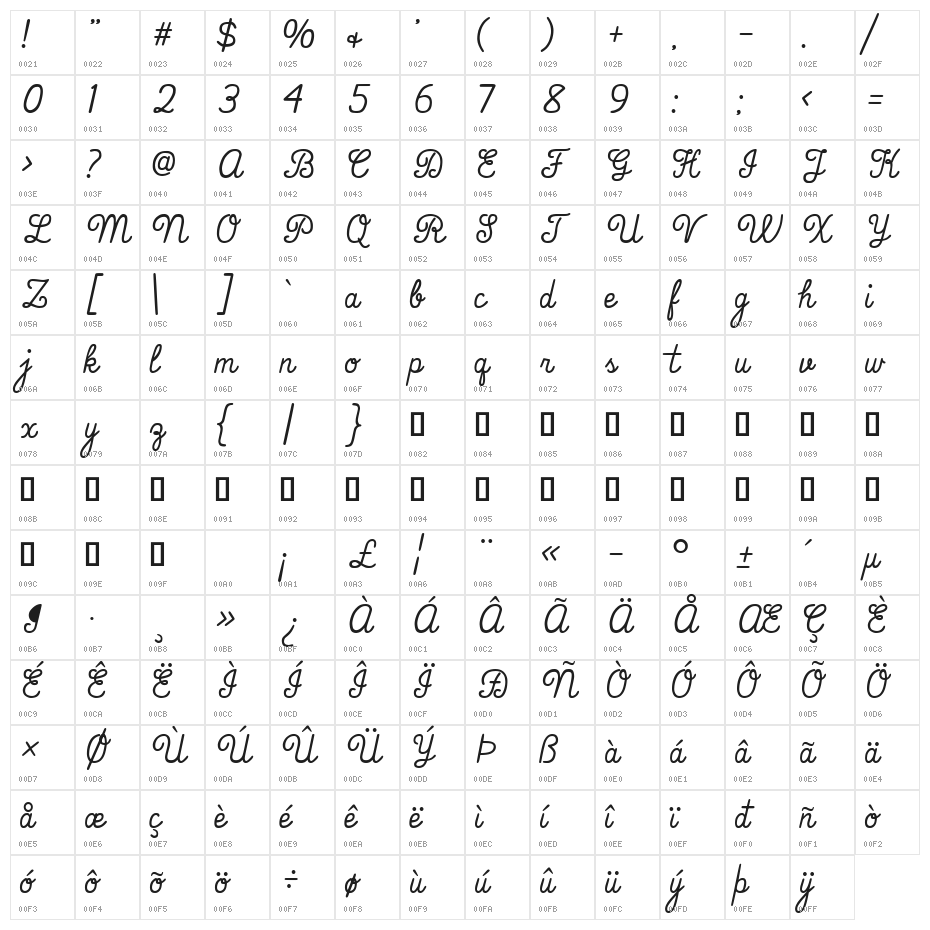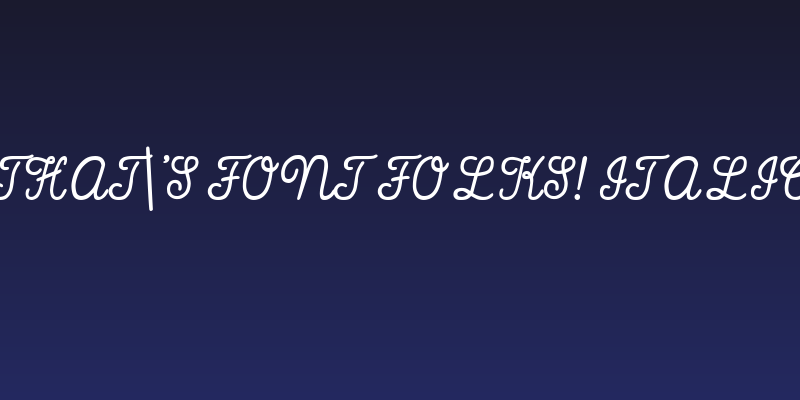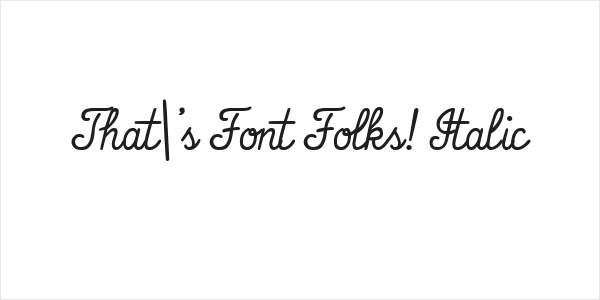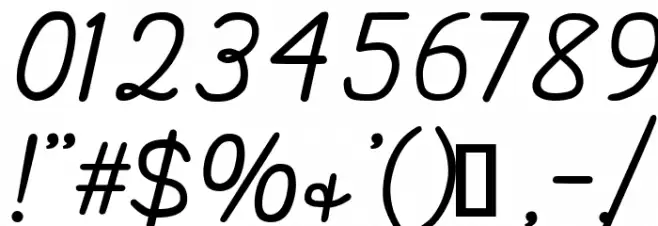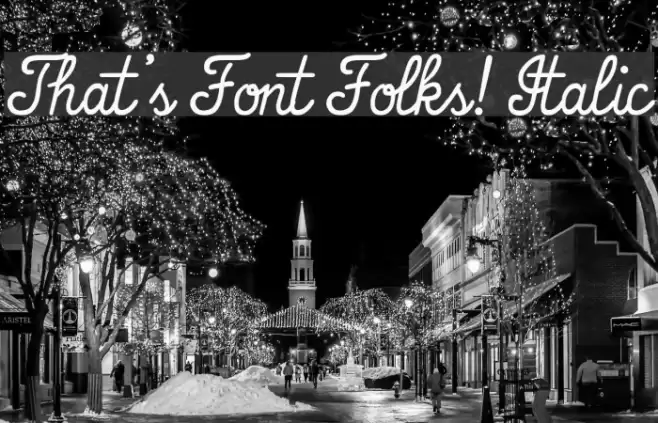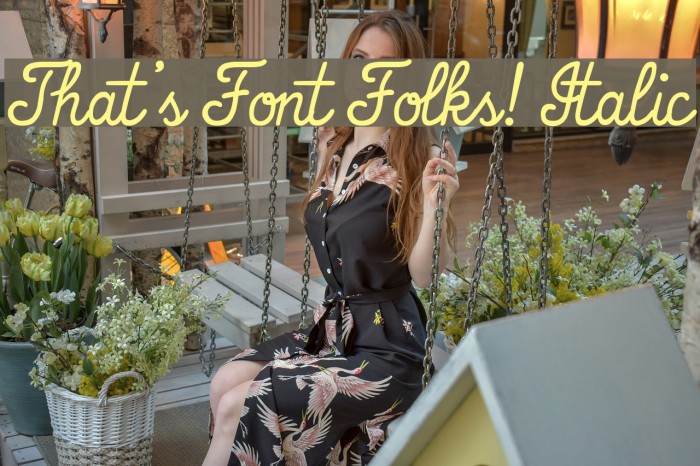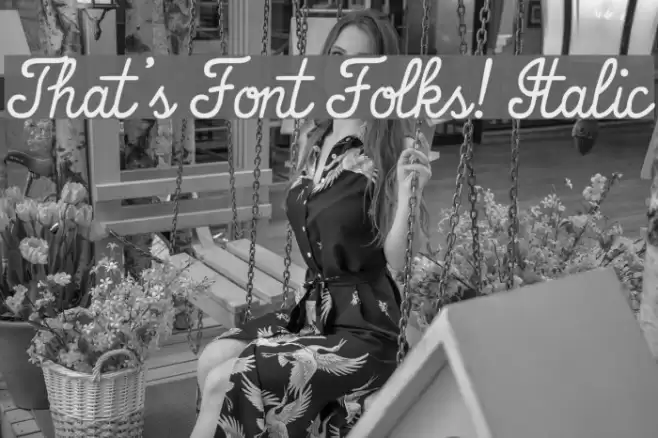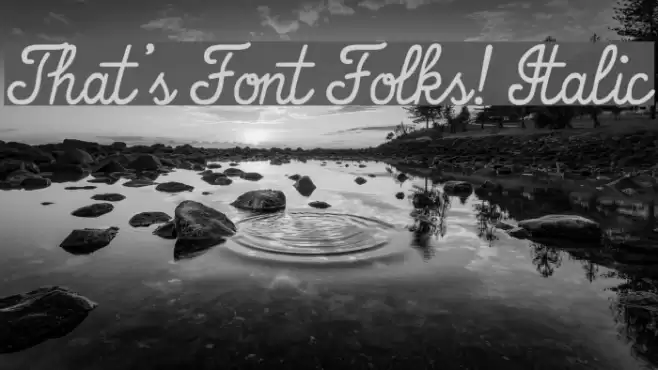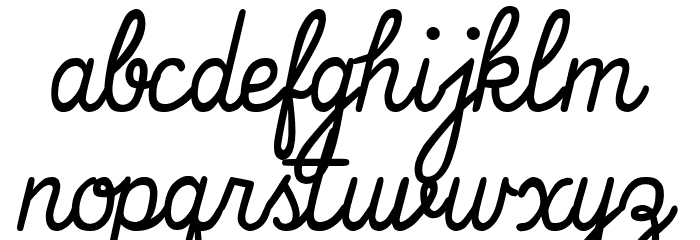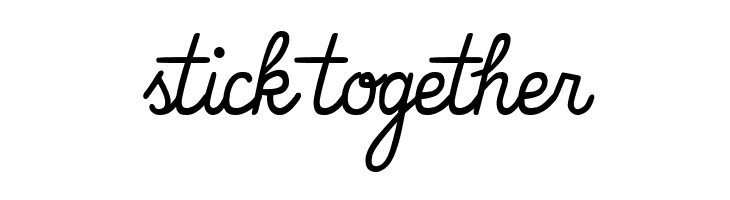
That's Font Folks! Italic Font
That's Font Folks! Italic Description
This font features a playful and whimsical script style, characterized by its smooth, flowing curves and elegant loops. The letters are connected in a cursive manner, giving it a handwritten feel that is both casual and sophisticated. The uppercase letters maintain a consistent height, while the lowercase letters exhibit a slight slant, enhancing the font's dynamic appearance. The numerals and special characters are designed to match the overall script style, ensuring a cohesive look across all elements. This font's unique charm makes it suitable for a variety of creative applications.
| Use Case | Logos, Invitations, Greeting cards |
| Proposed Projects | Ideal for wedding invitations, greeting cards, personal branding, and creative projects requiring a touch of elegance. |